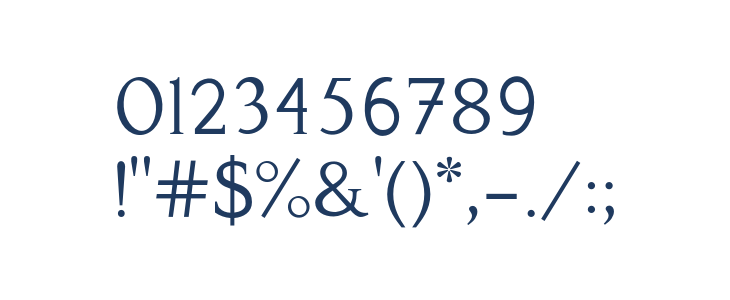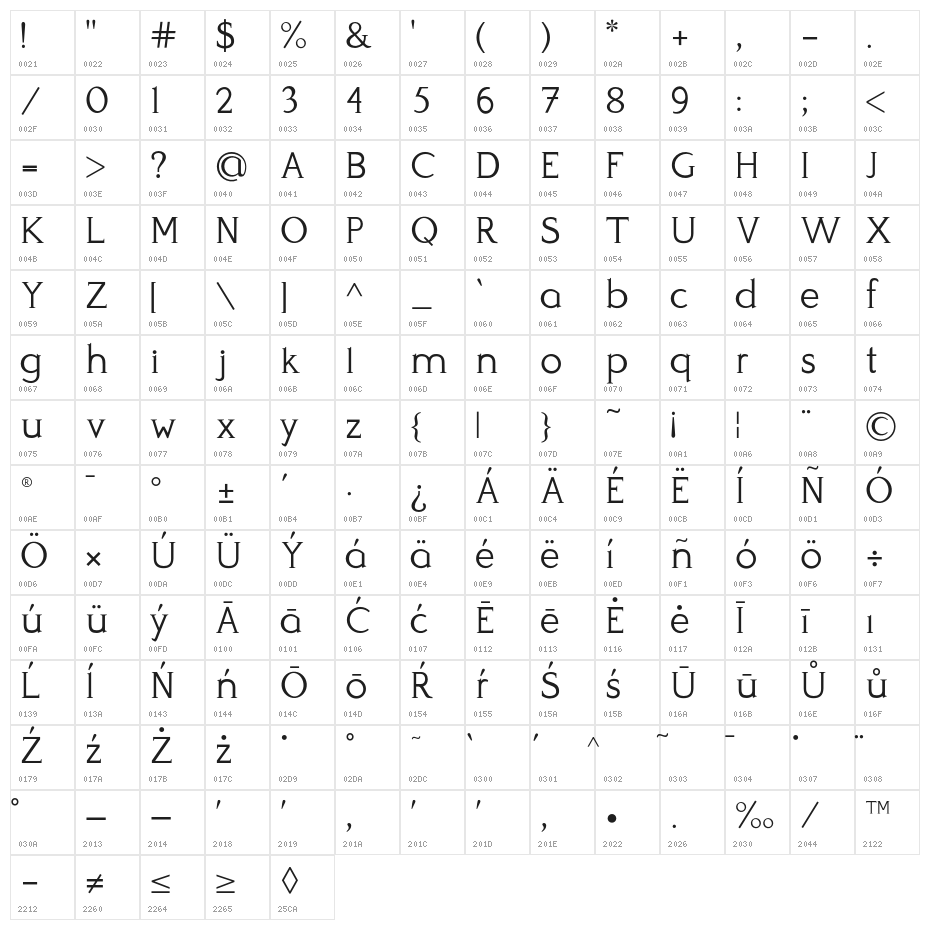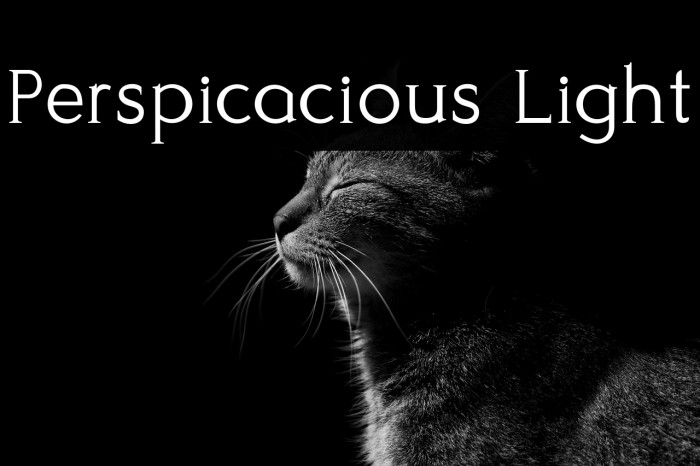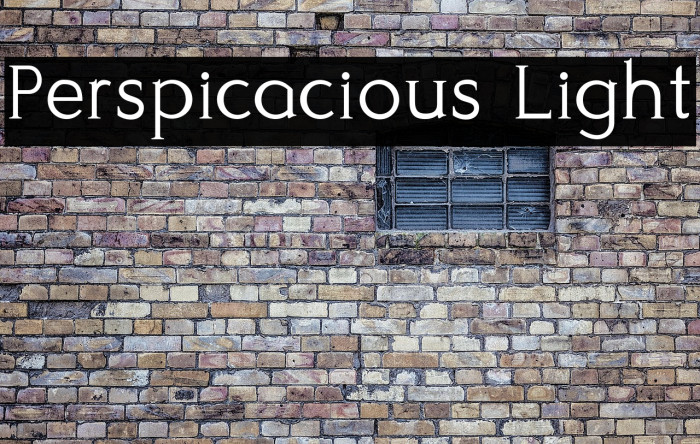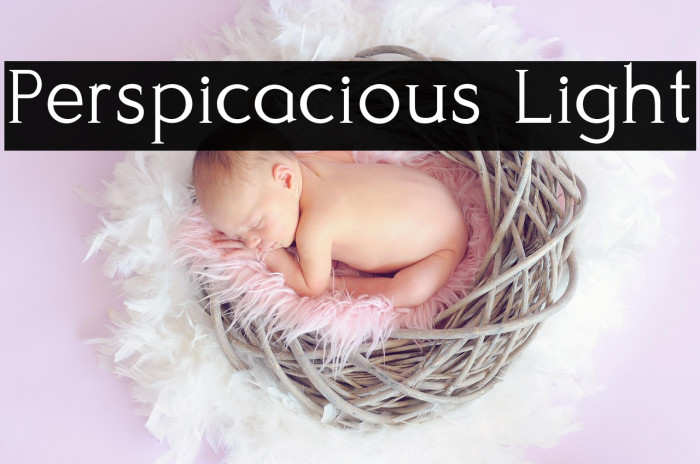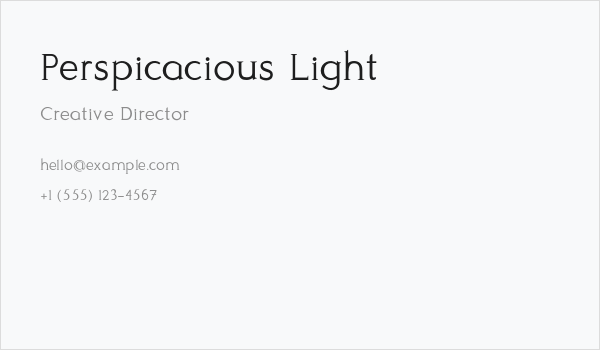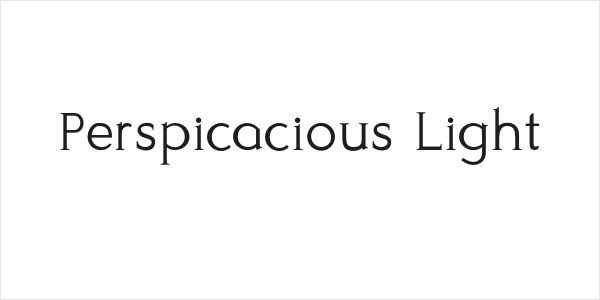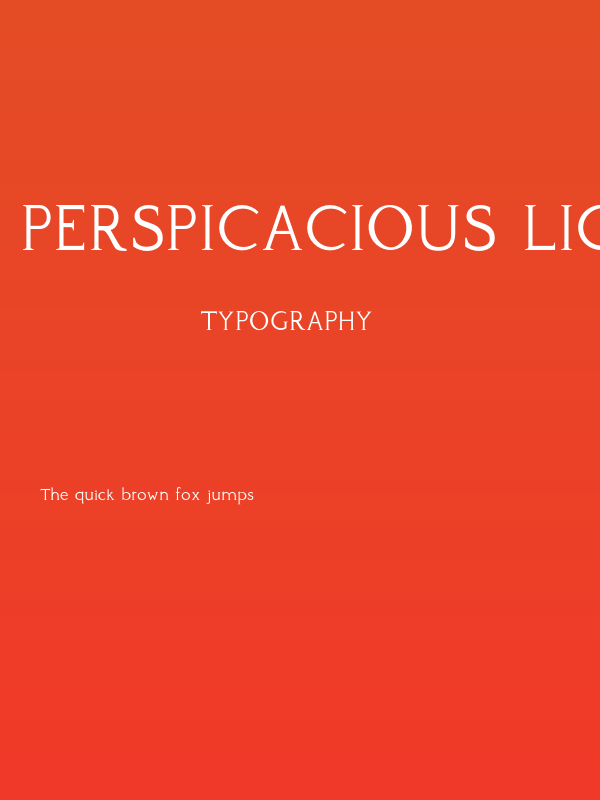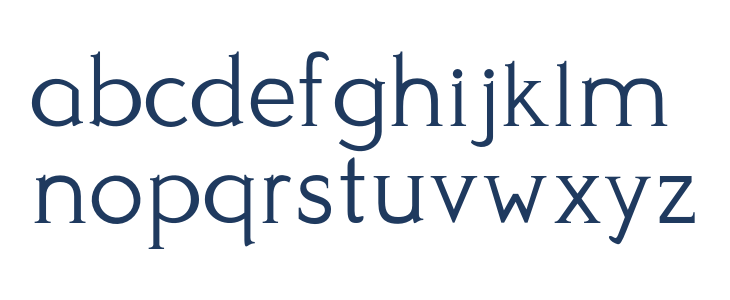
Perspicacious Light Font
Perspicacious Light Description
This font exhibits a refined and elegant design, characterized by its clean lines and balanced proportions. The uppercase letters are tall and commanding, while the lowercase letters maintain a harmonious flow. The numerals are distinct and easy to read, complementing the overall aesthetic. Special characters are thoughtfully crafted, ensuring versatility in various contexts. The font's light weight adds a touch of sophistication, making it suitable for both formal and contemporary applications. Its design is both timeless and adaptable, offering a seamless blend of tradition and modernity.